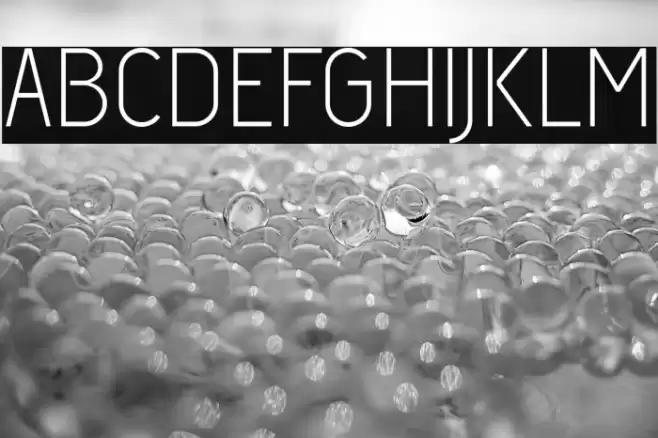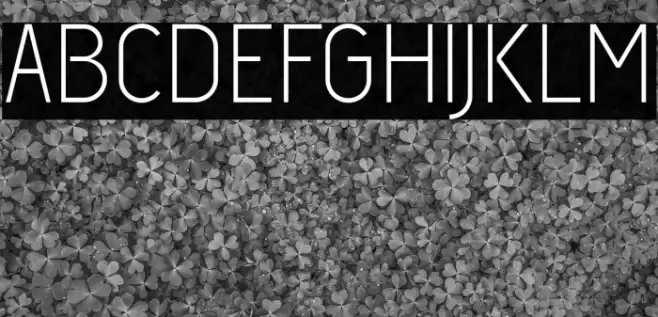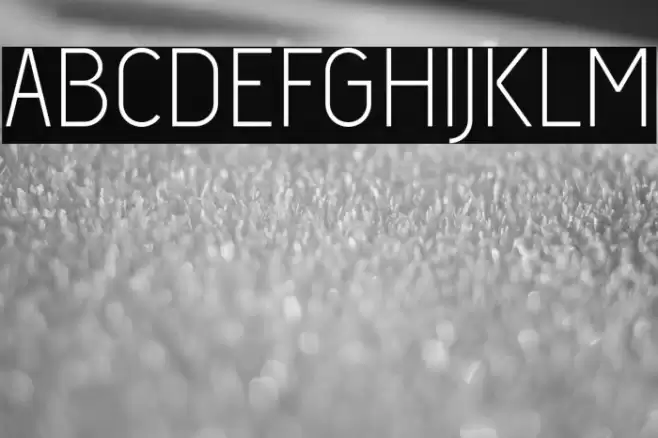
CapsuulaRegular Font
CapsuulaRegular Description
This font features a clean and modern sans-serif style with a geometric structure. The characters are uniform in width, giving it a monospaced appearance, though it is not strictly monospaced. The uppercase letters are tall and narrow, while the lowercase letters maintain a consistent height, contributing to its sleek and streamlined look. The numerals are clear and legible, matching the overall aesthetic of the alphabet. Special characters are designed with the same minimalist approach, ensuring they blend seamlessly with the rest of the font. This typeface is versatile, suitable for both digital and print media, offering a contemporary feel that is both professional and approachable.
A modern, geometric sans-serif font with a clean and streamlined design from Sans Serif fonts.
- Proposed Projects: Ideal for branding, web design, editorial layouts, and corporate materials.